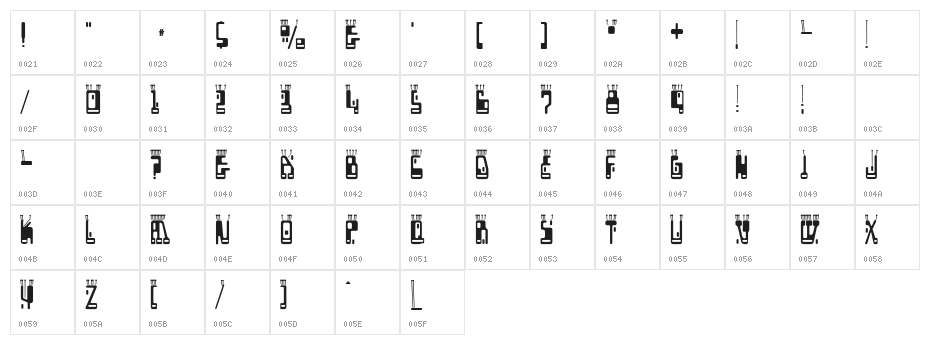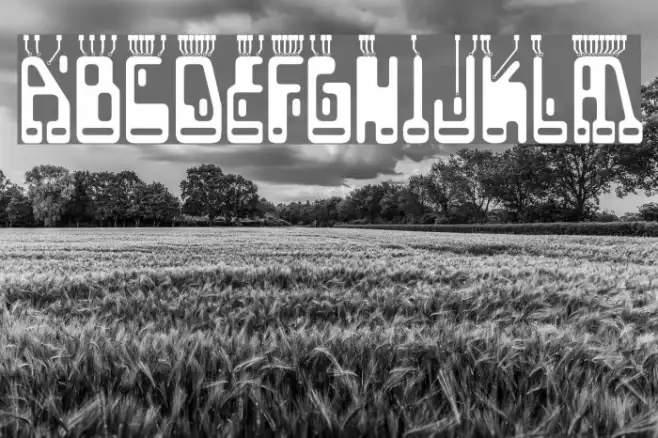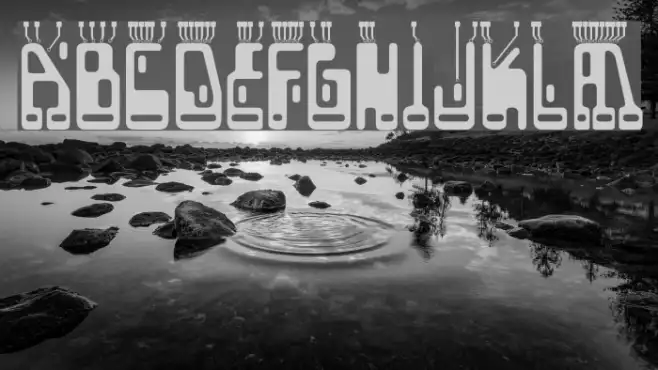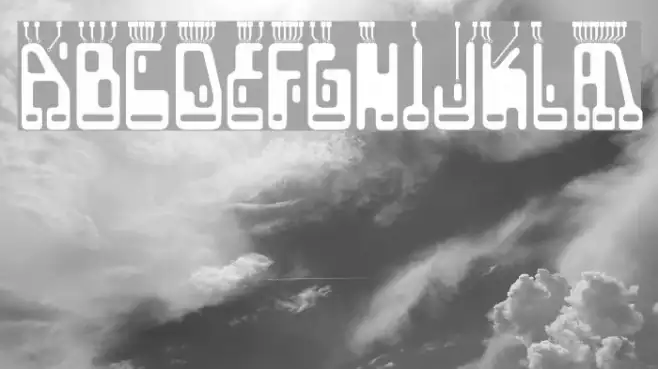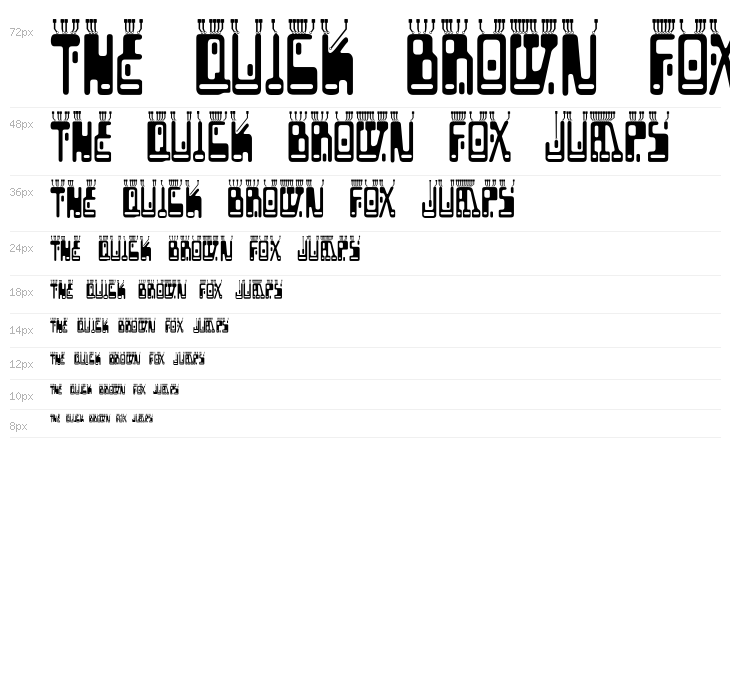
Boron Font
Boron Description
This font features a highly decorative and futuristic design, characterized by bold, geometric shapes and unique embellishments that resemble mechanical or electronic components. Each letterform is distinct, with intricate details that give the font a technological and avant-garde appearance. The uppercase and lowercase letters maintain a consistent style, while the numerals and special characters integrate seamlessly with the overall design. The font's boldness and distinctive style make it stand out, ideal for projects that require a modern and eye-catching aesthetic.
Overall StyleFuturistic, Decorative
Proposed ProjectsIdeal for technology-themed posters, sci-fi book covers, video game graphics, and branding for tech companies.